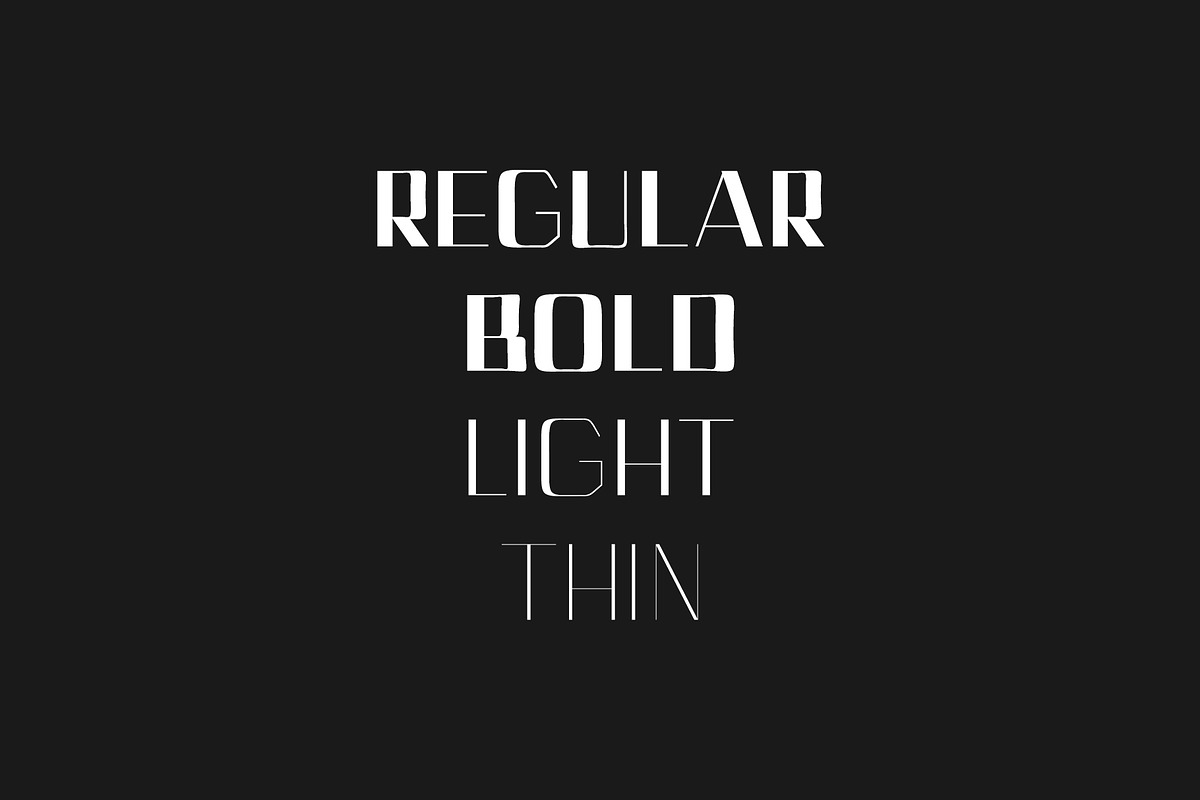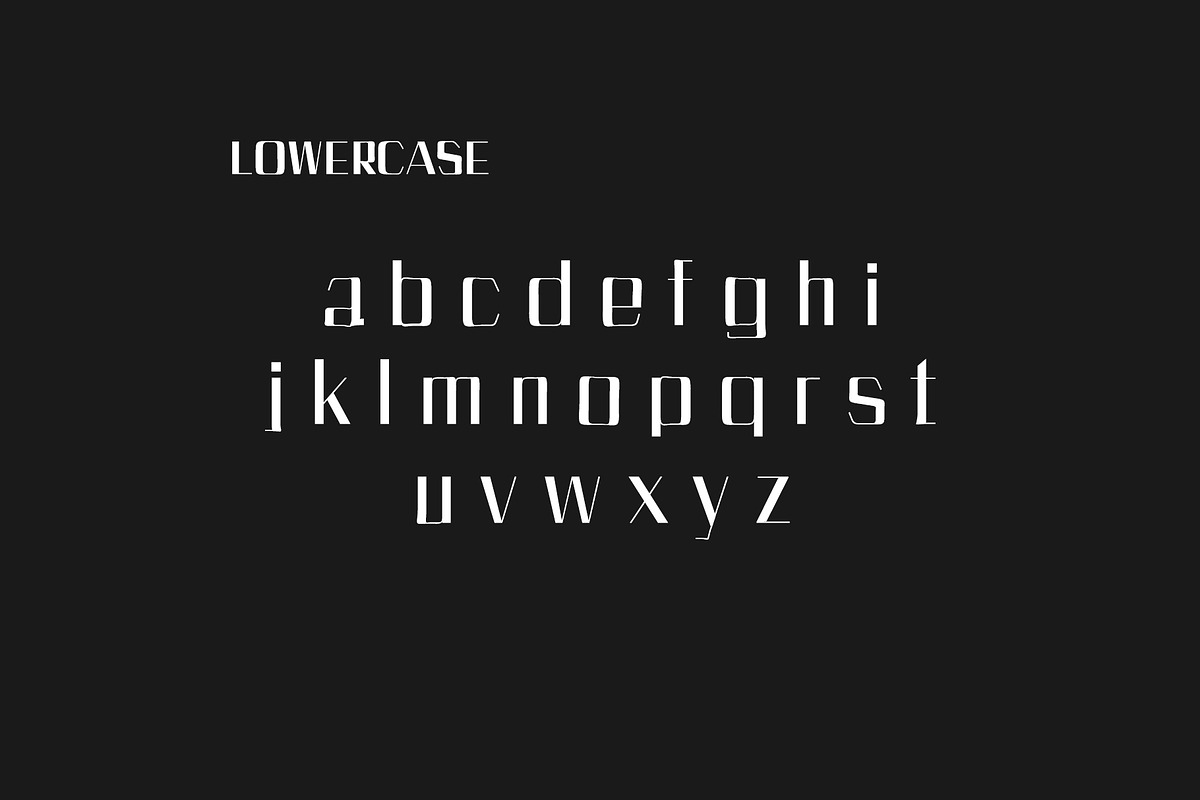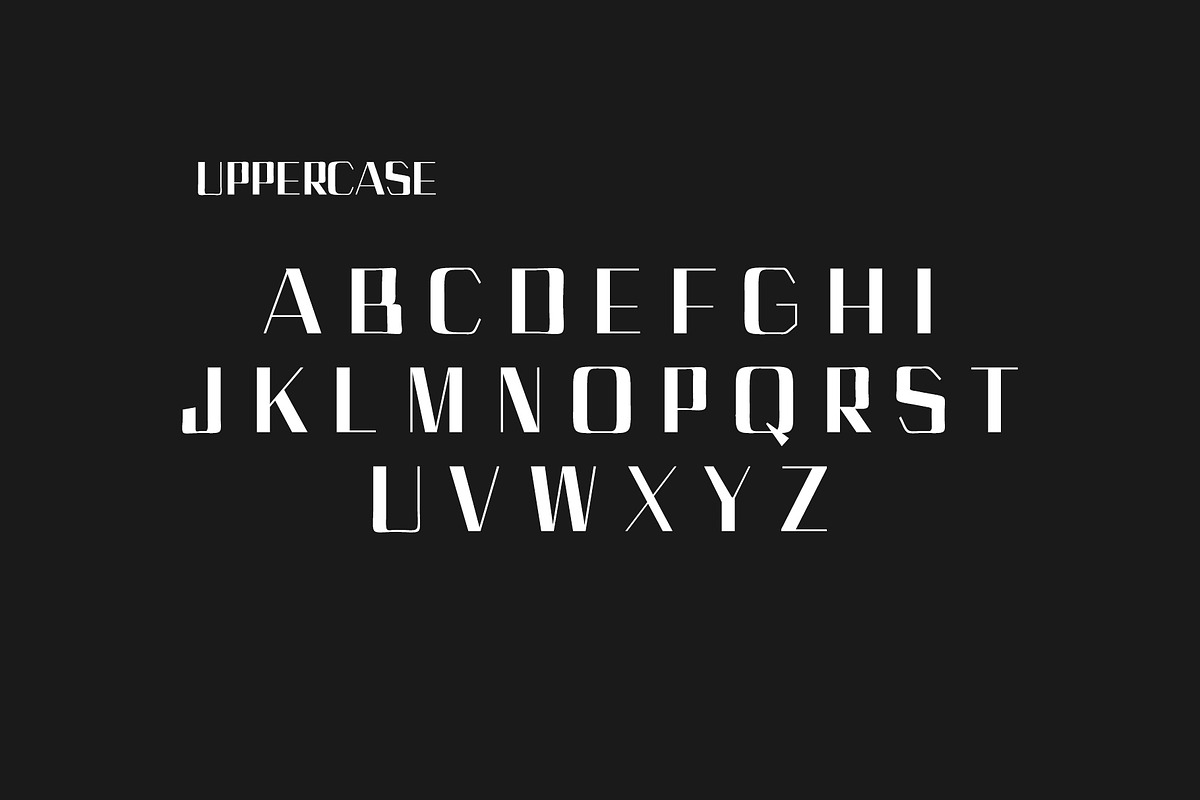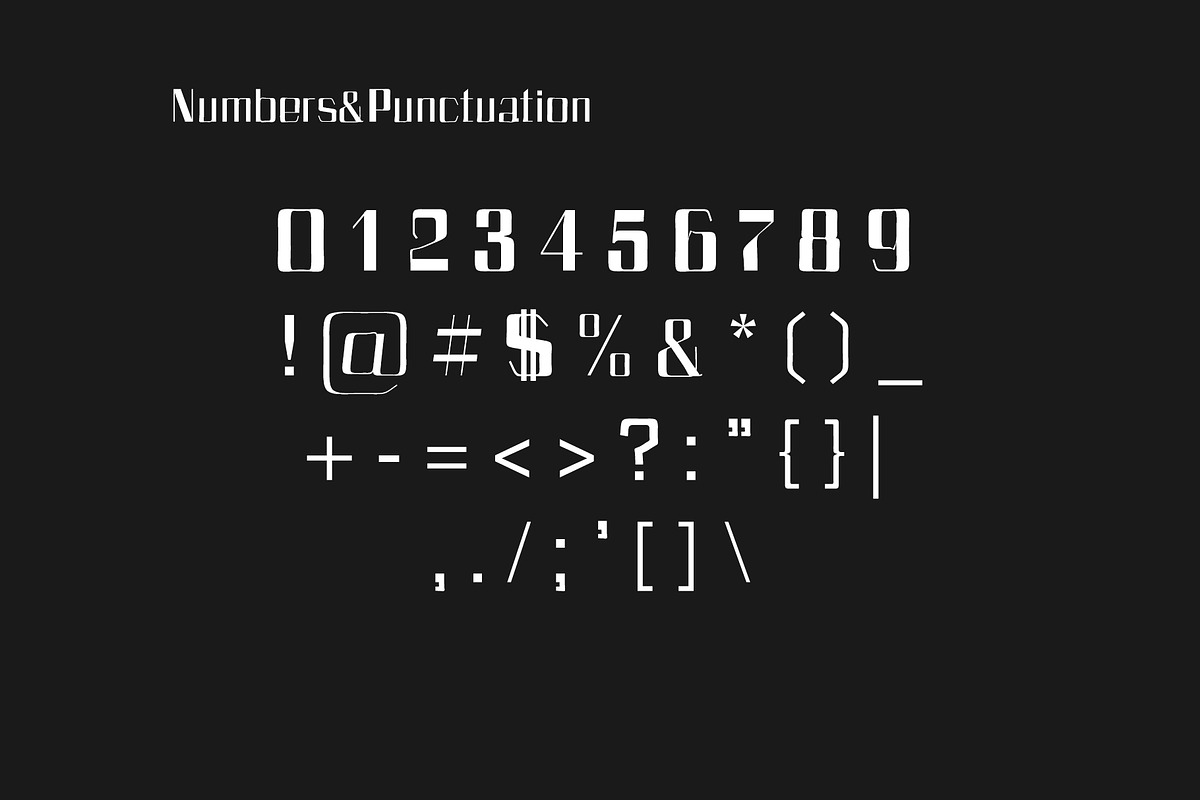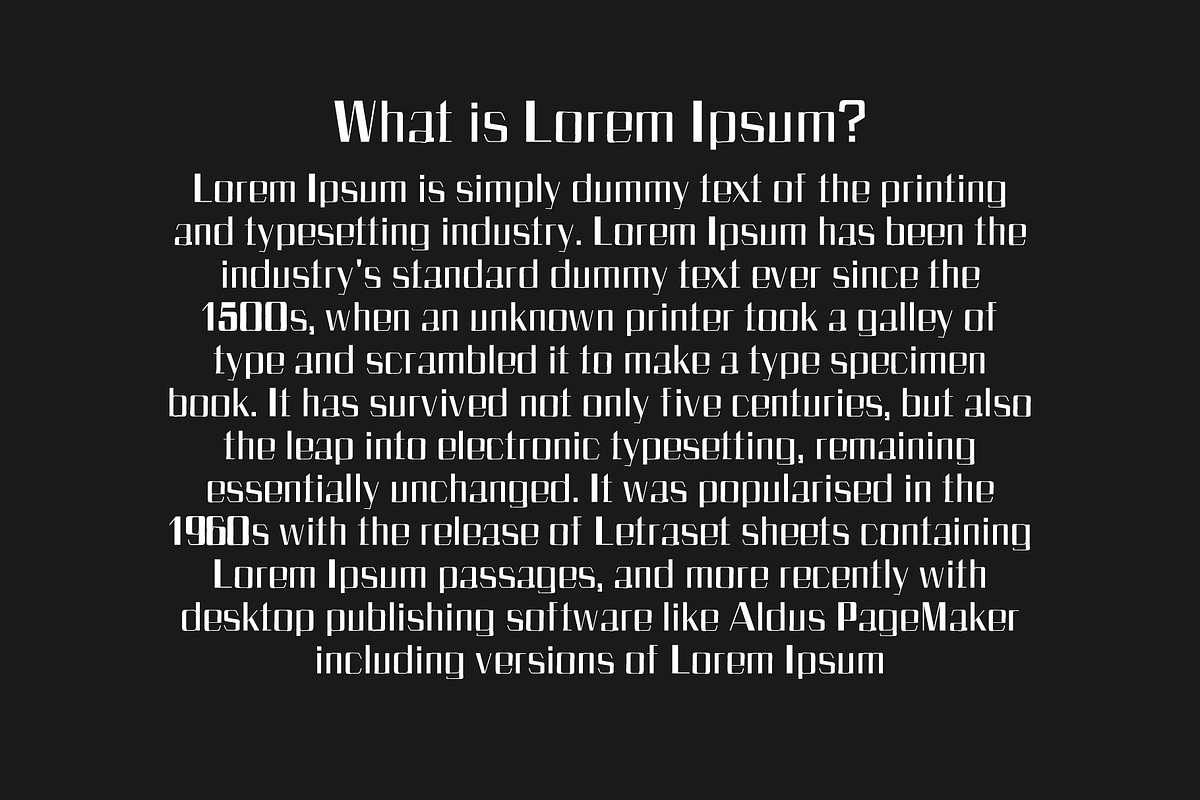
Bethan Sans Serif Font Family Pack
Bethan Sans Serif Font Family Pack by Creativetacos is a font selected for branding, posters, packaging, typography.
Why Bethan Sans Serif Font Family Pack is worth a look
Bethan Sans Serif Font Family Pack by Creativetacos fits naturally into Branding, posters, packaging, typography.